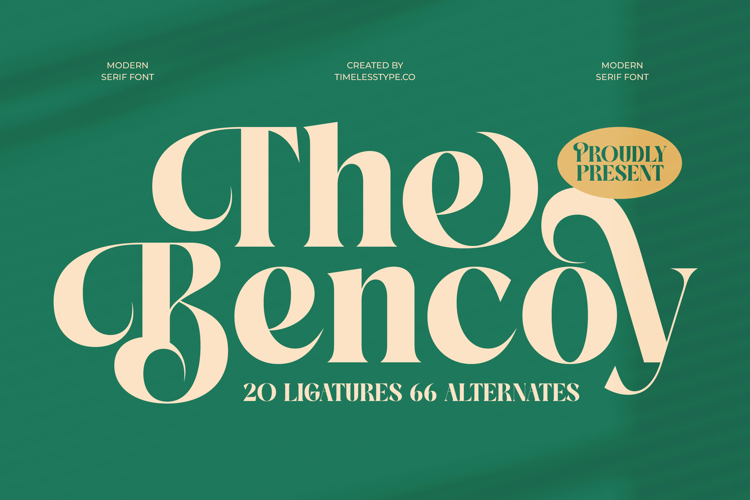
The Bencoy - Modern Serif Font
Elevate your design projects with unparalleled sophisticated grandeur. Introducing The Bencoy - Modern Serif Font, a meticulously crafted typeface that masterfully blends timeless elegance with contemporary flair. Its unique characters, featuring graceful curves and defined serifs, create a visually captivating presence, commanding attention and conveying refined prestige. This font is engineered to infuse distinctive charm into any creative endeavor.
Unlock an expansive realm of creative expression and global reach. The Bencoy - Modern Serif Font boasts an impressive array of 20 ligatures and 66 alternates, offering unparalleled customization options. With its extensive multilingual support, The Bencoy - Modern Serif Font adapts seamlessly across global markets, making it incredibly versatile for international projects, ensuring your message resonates worldwide with clarity and style.
Curated for distinction, this font is the ultimate choice for impactful branding. The Bencoy - Modern Serif Font is impeccably suited for luxury branding, high-end packaging, editorial design, fashion spreads, exclusive invitations, and memorable logo design. Its inherent elegance and modern appeal ensure that every application makes a bold statement, setting your brand apart and leaving a lasting impression.